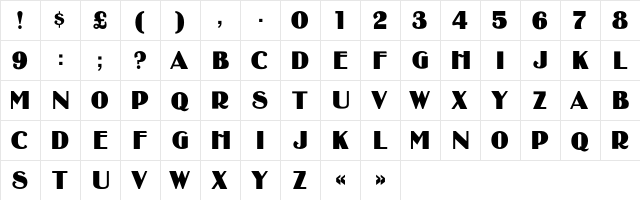
BinnerC Regular
Design Context for BinnerC Typeface
BinnerC is a composed and adaptable typeface that performs quietly and consistently across a wide range of design contexts.